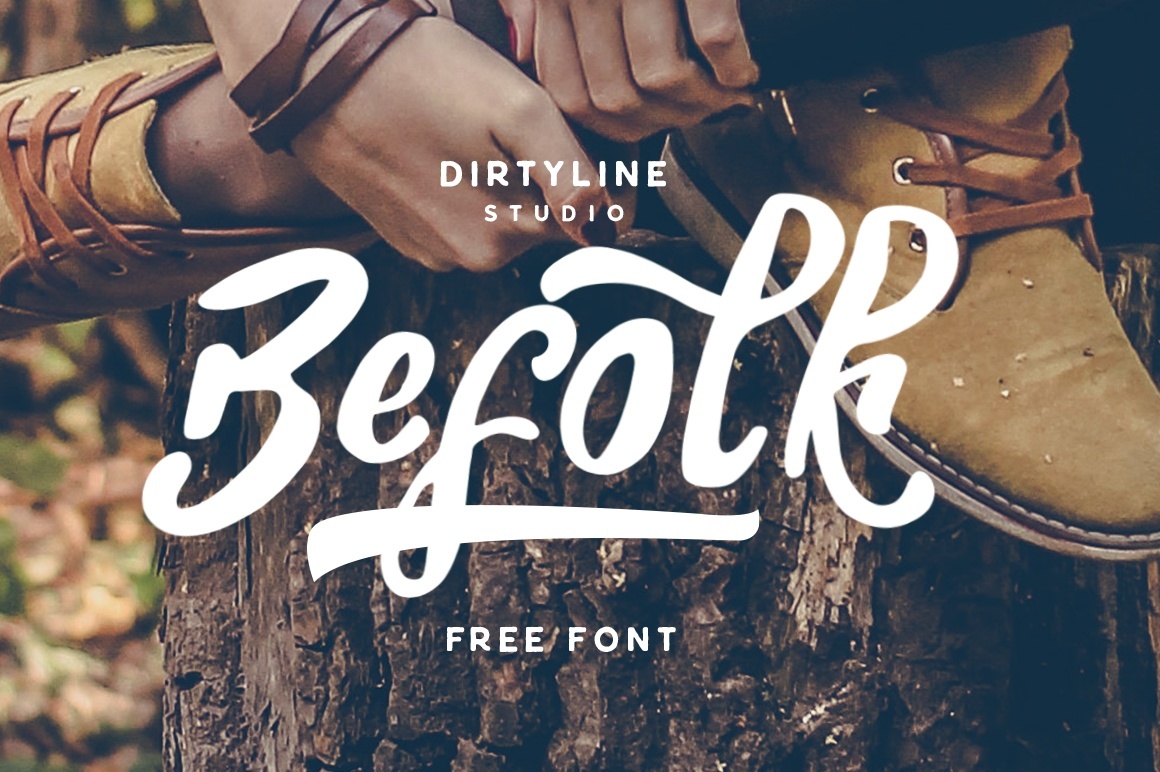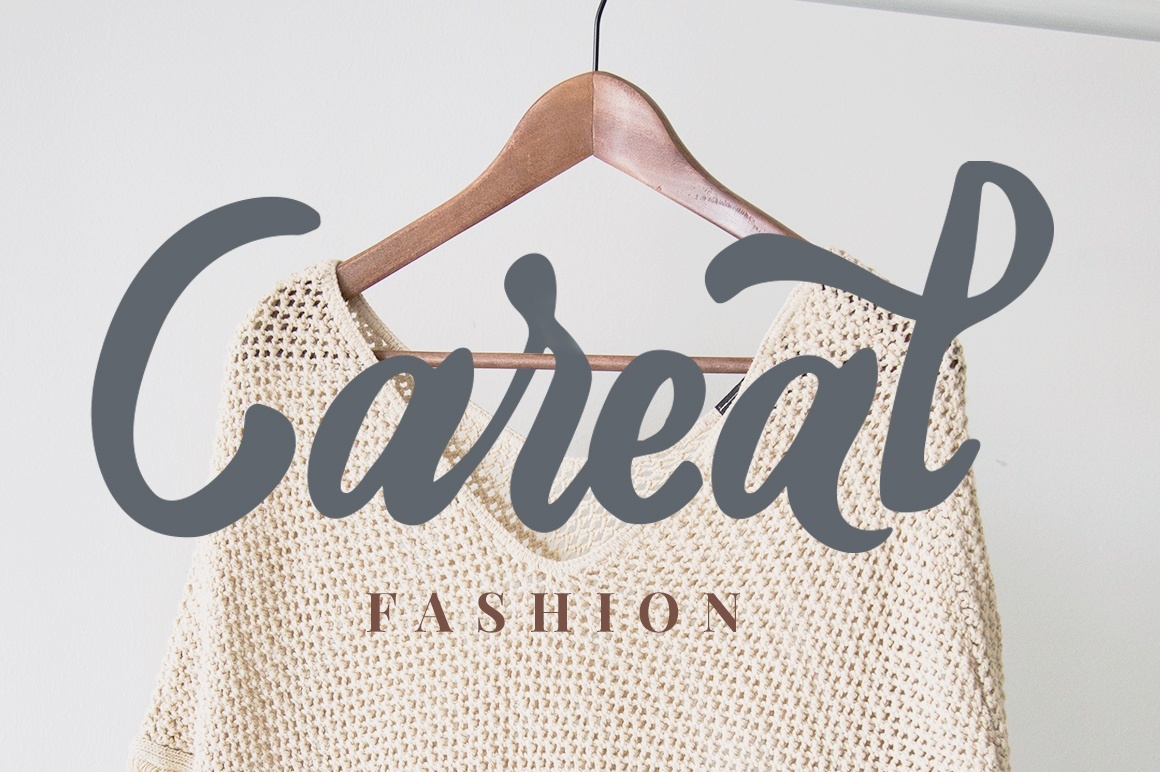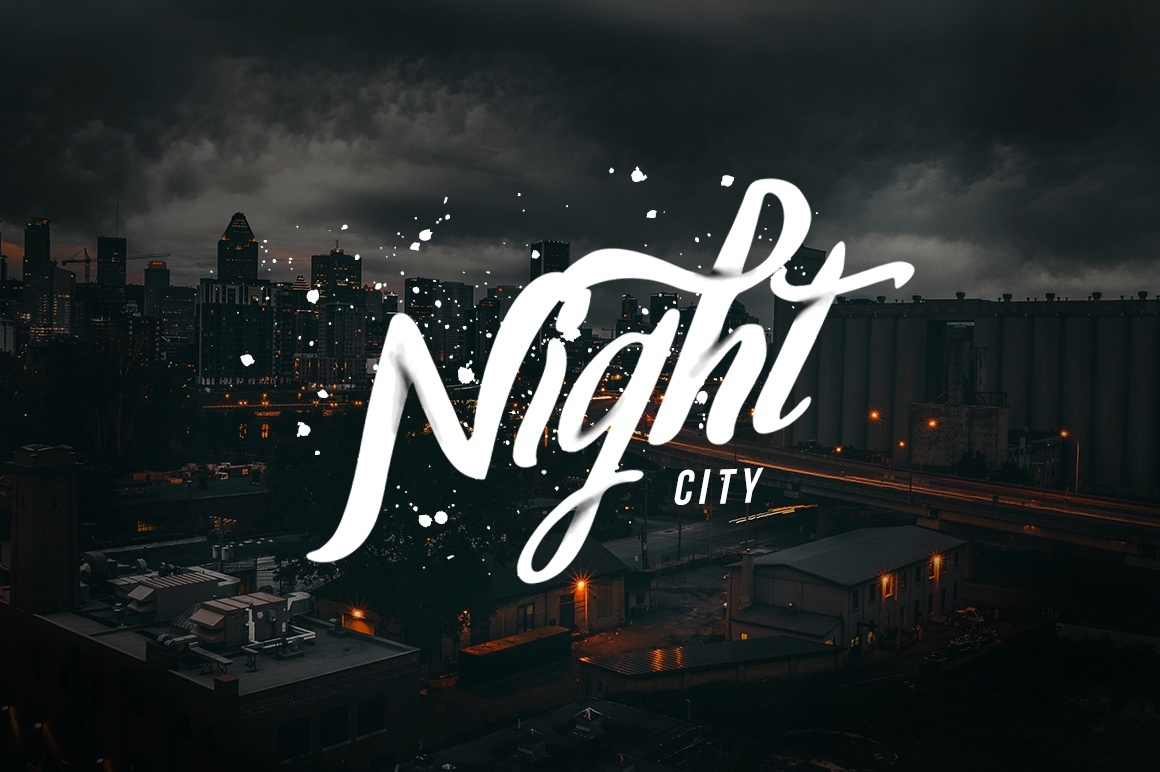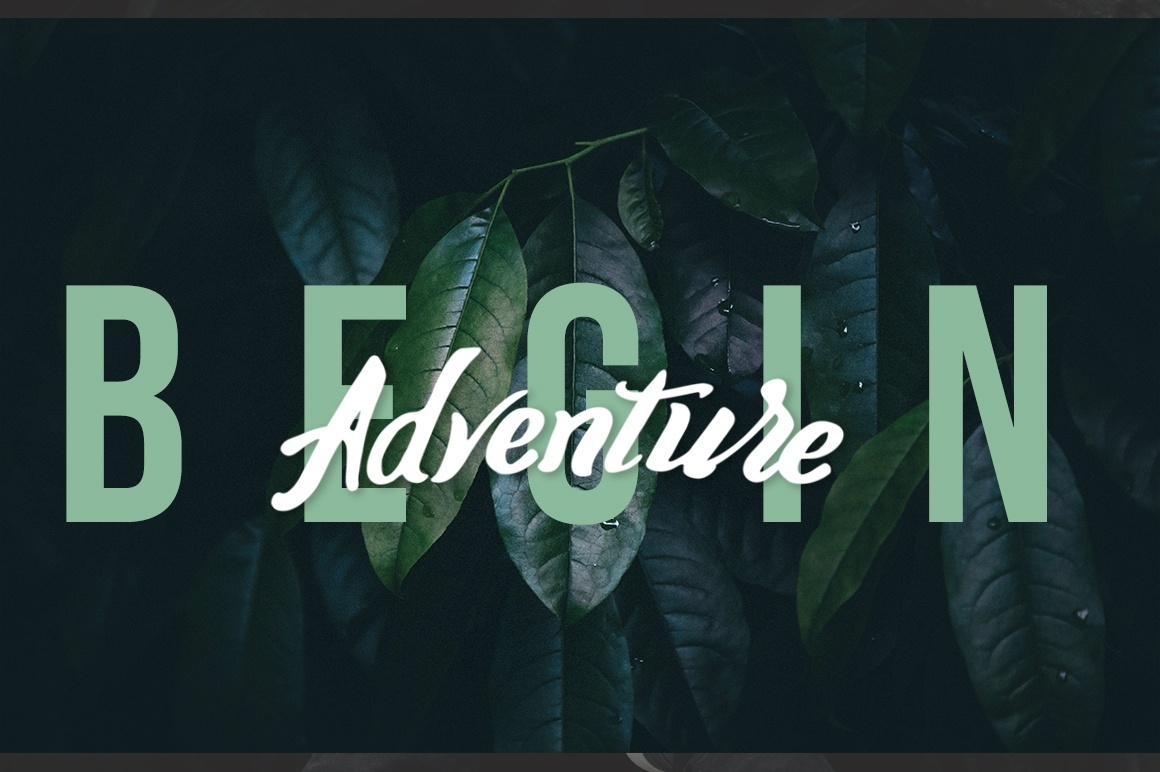
Befolk brush script free typeface
Befolk brush script free typeface has a strong handwritten look that could work in some projects where you need a specifique look, like for instance logos, flyers, posters, badges, some headlines, whatever your imagination decides.